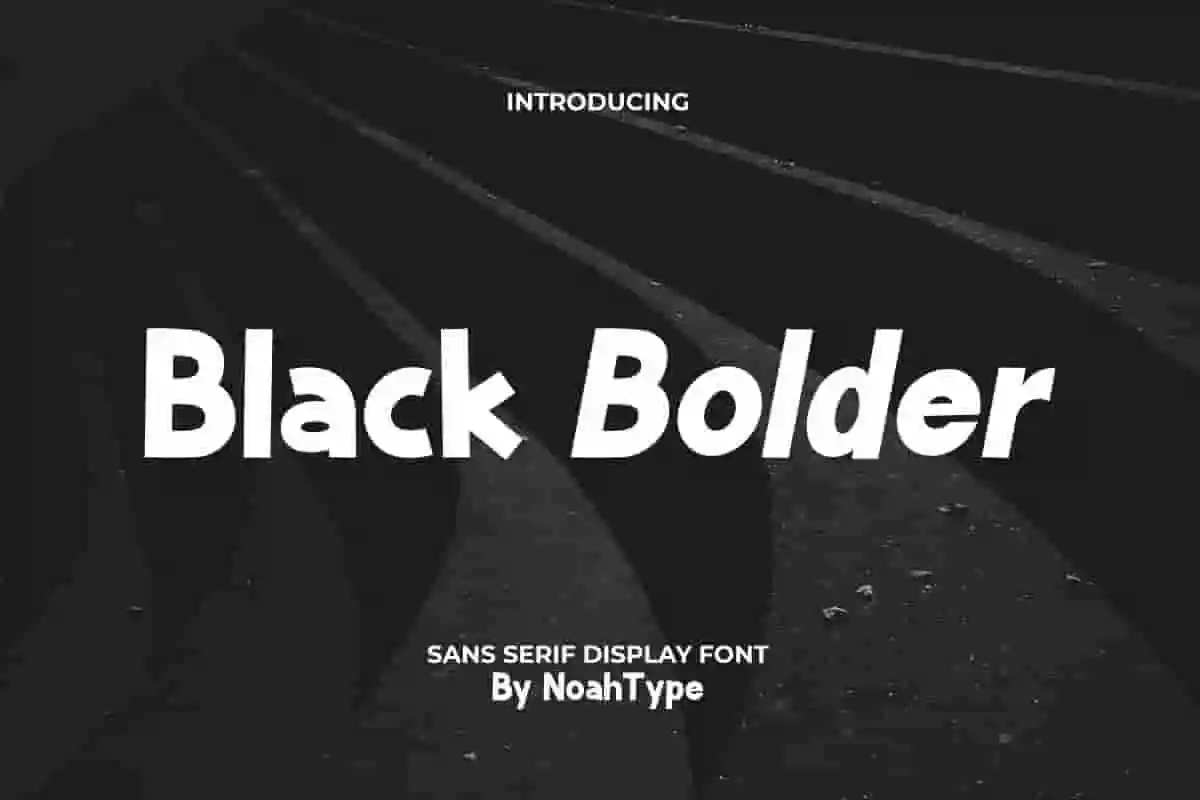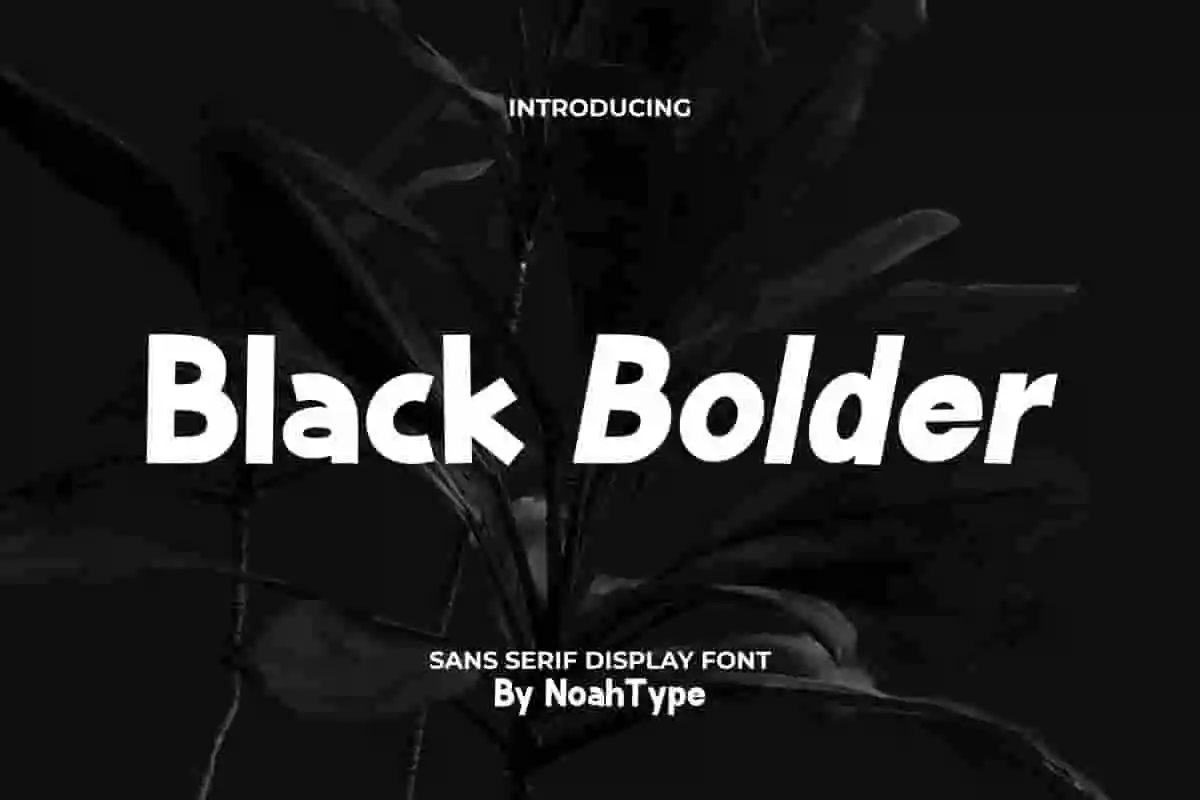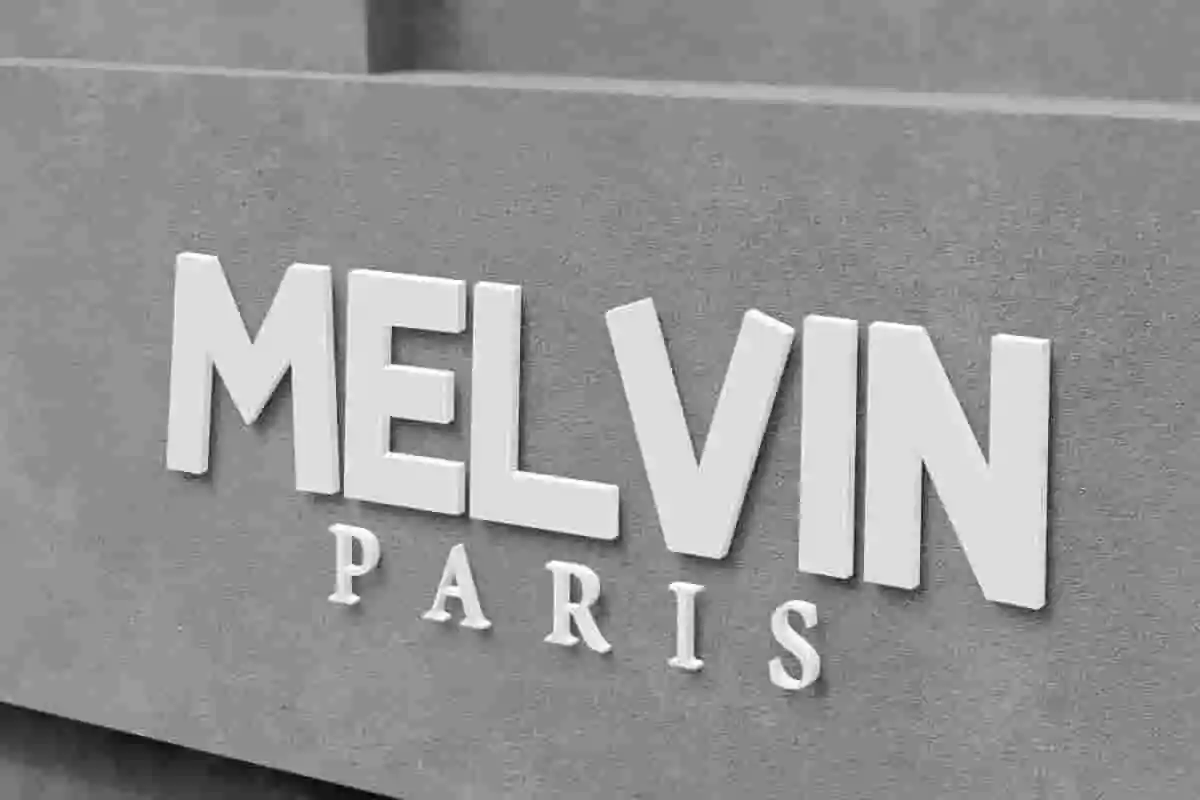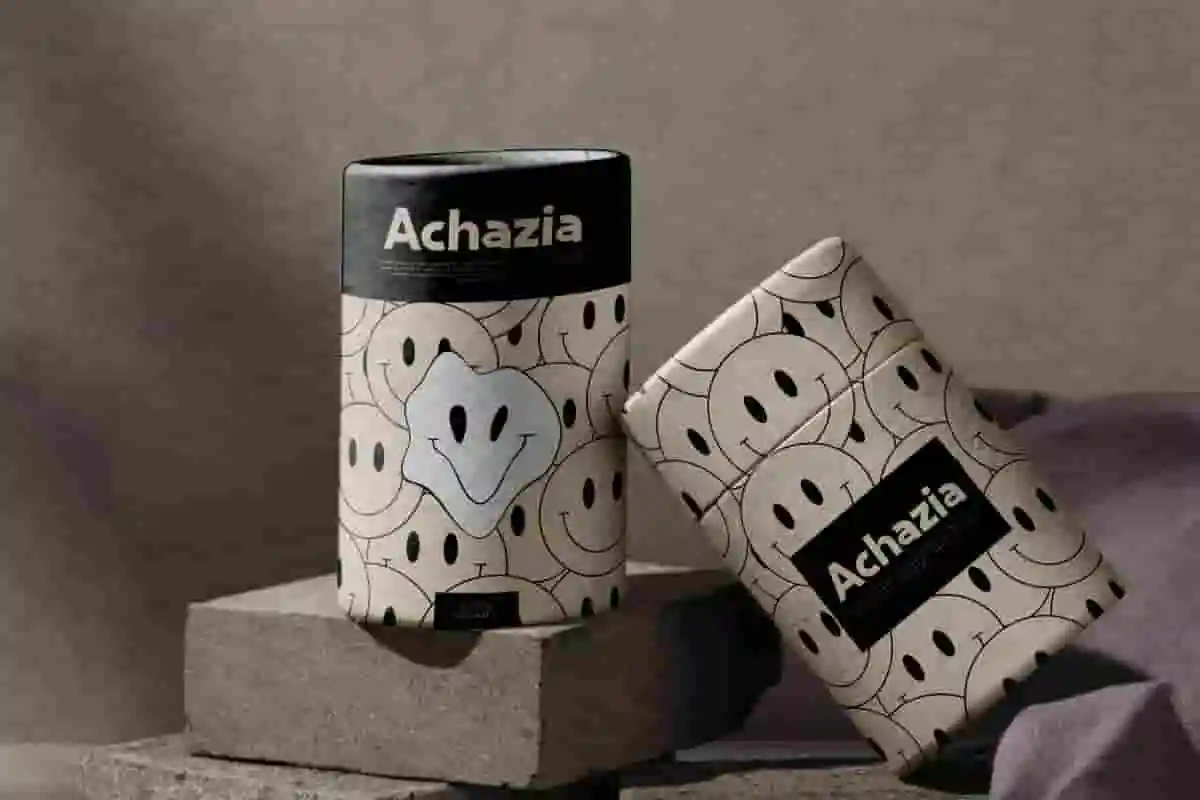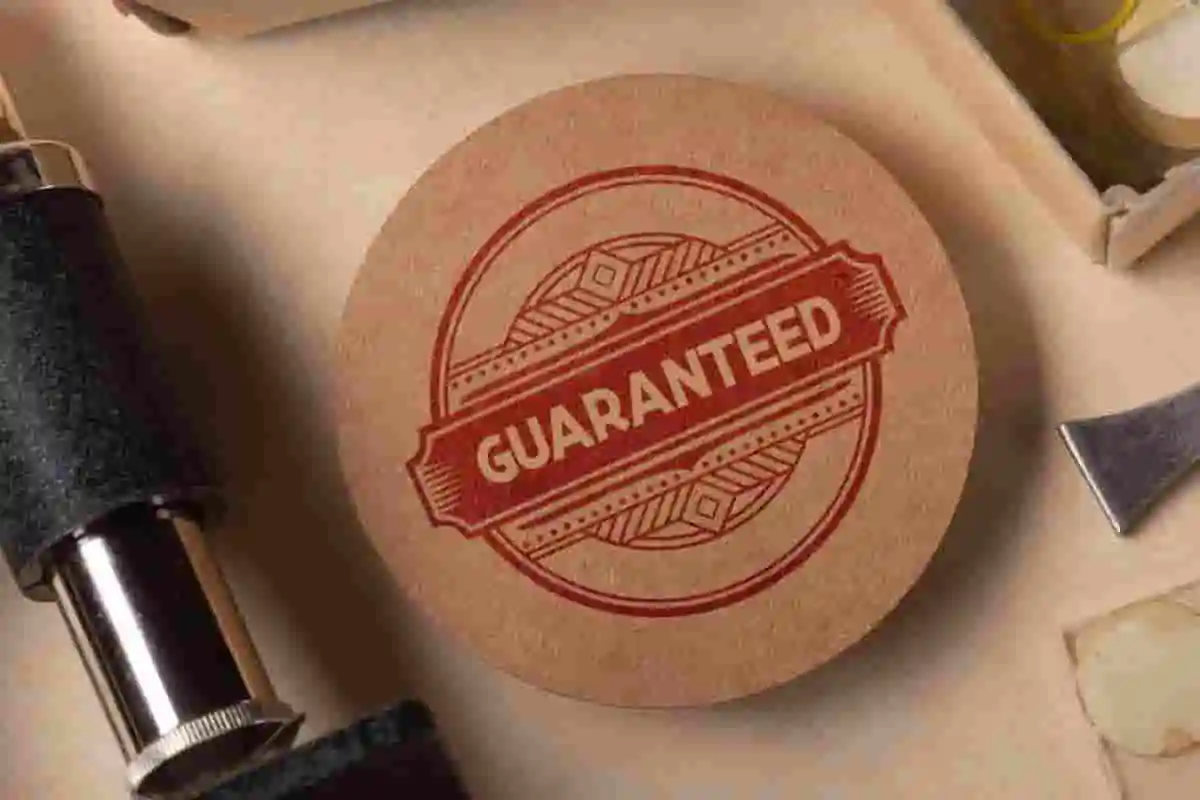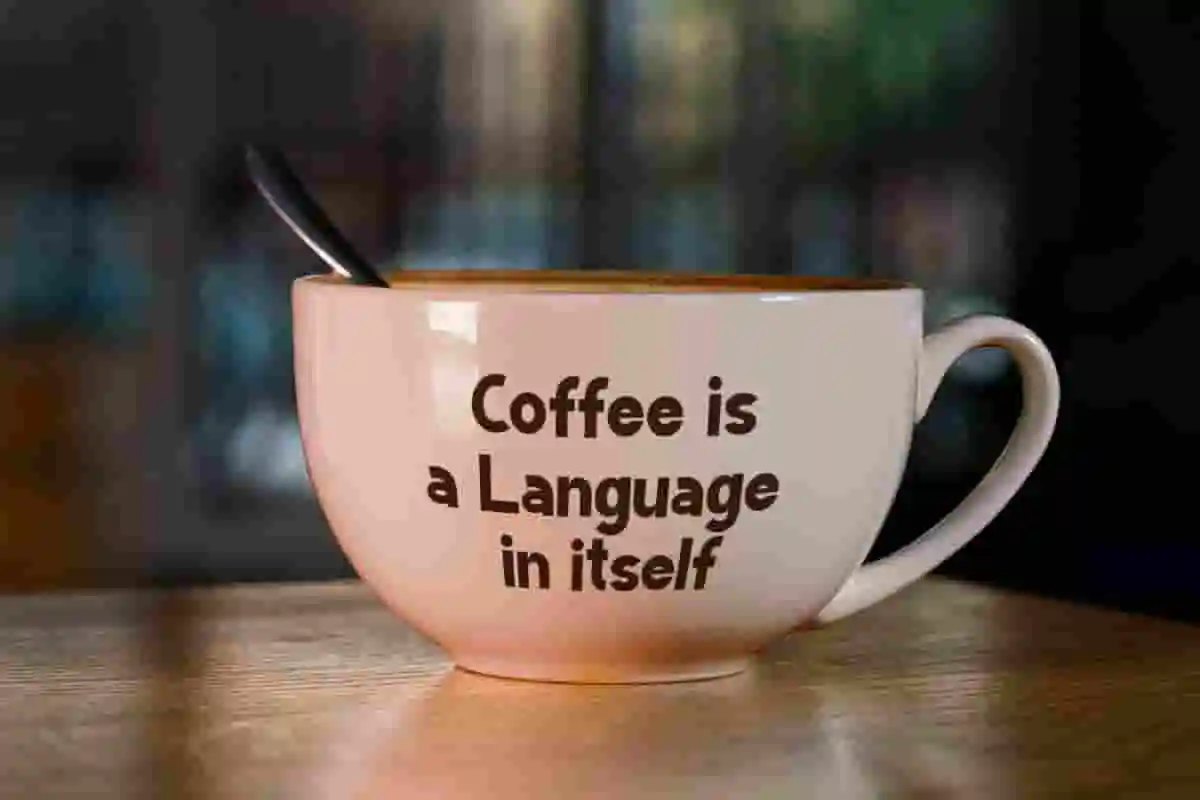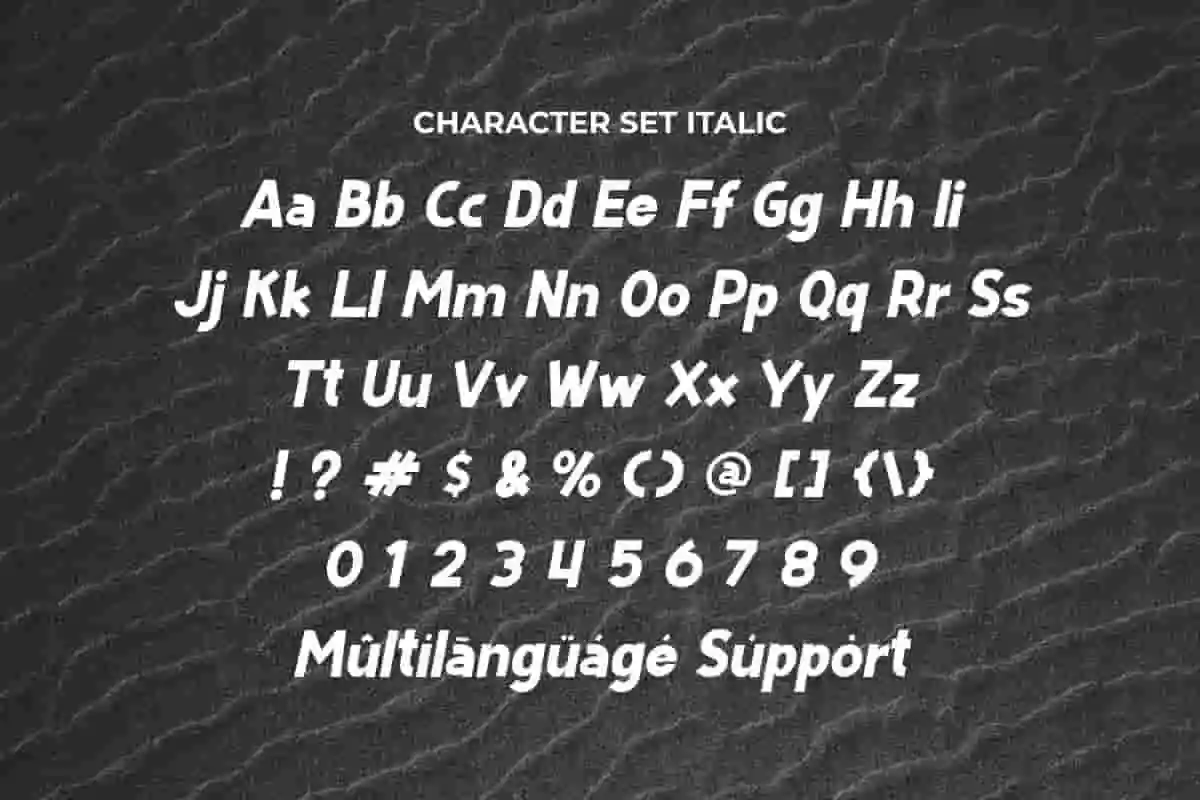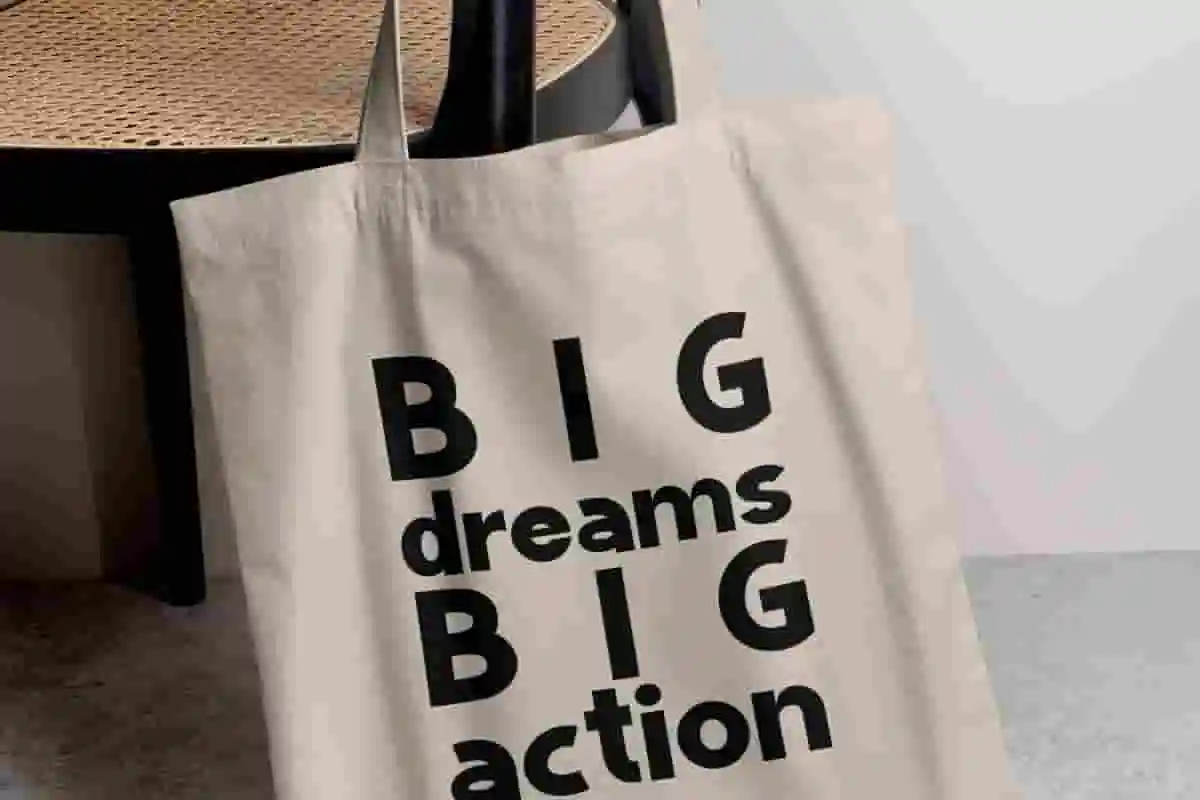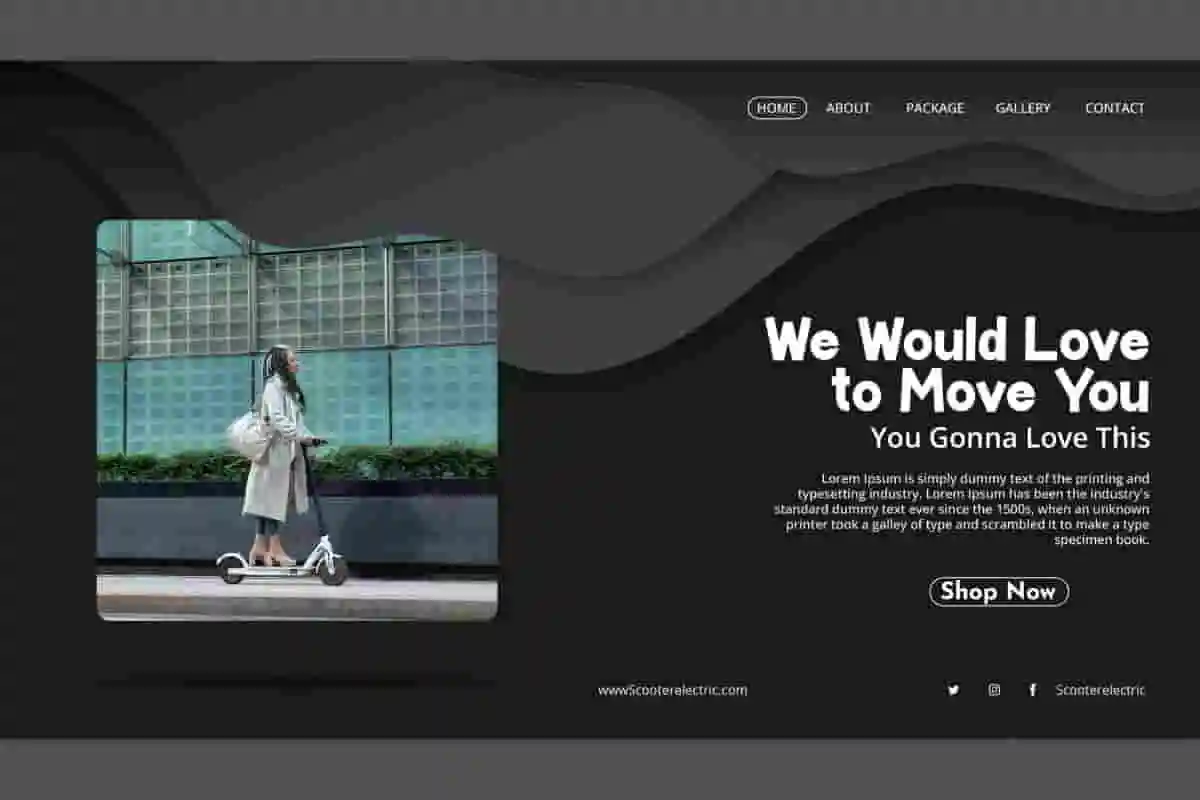
Black Bolder Font is a strong sans serif display font, created by NoahType. This font has bold shaped lines that will make your designs looks more contemporary! It would be perfect choice for many industries, such as fashion, accessories, advertisement, café, restaurant, furniture, handicrafts, printing, publishing, sport, and more!
Black Bolder Font include full set of Uppercase and Lowercase Basic Characters, Numerals and Punctuation. This font has two styles: Regular and Italic which will give a unique modern vibe. Also can be used in any design, such as signage, product packaging, custom design, business card, catalog, label, magazine poster, screen printing, stationery, sticker, title, website, etc.
This bold sans serif font is excellent for headlines, branding, posters, product packaging, advertising, and digital projects. Its clean lines and sharp edges create a professional look that instantly grabs attention while remaining easy to read in both large and small sizes. From social media graphics to corporate presentations, Black Bolder delivers confidence and authority in every design.